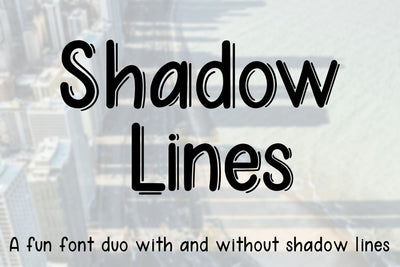
Shadow Lines - A fun font duo with and without shadow lines
Shadow Lines is a fun print font made up 2 fonts (Shadow Lines & Shadow Lines - Naked) . Each includes capital letters A-Z, lowercase letters a-z, numbers 0-9, accented characters and punctuation.